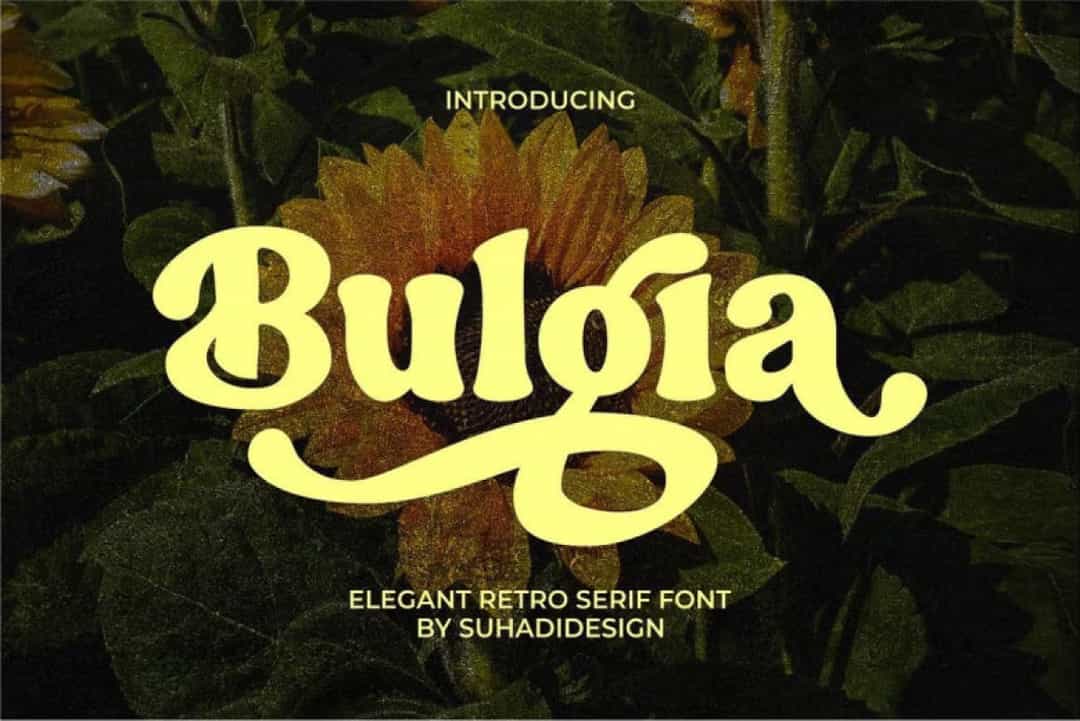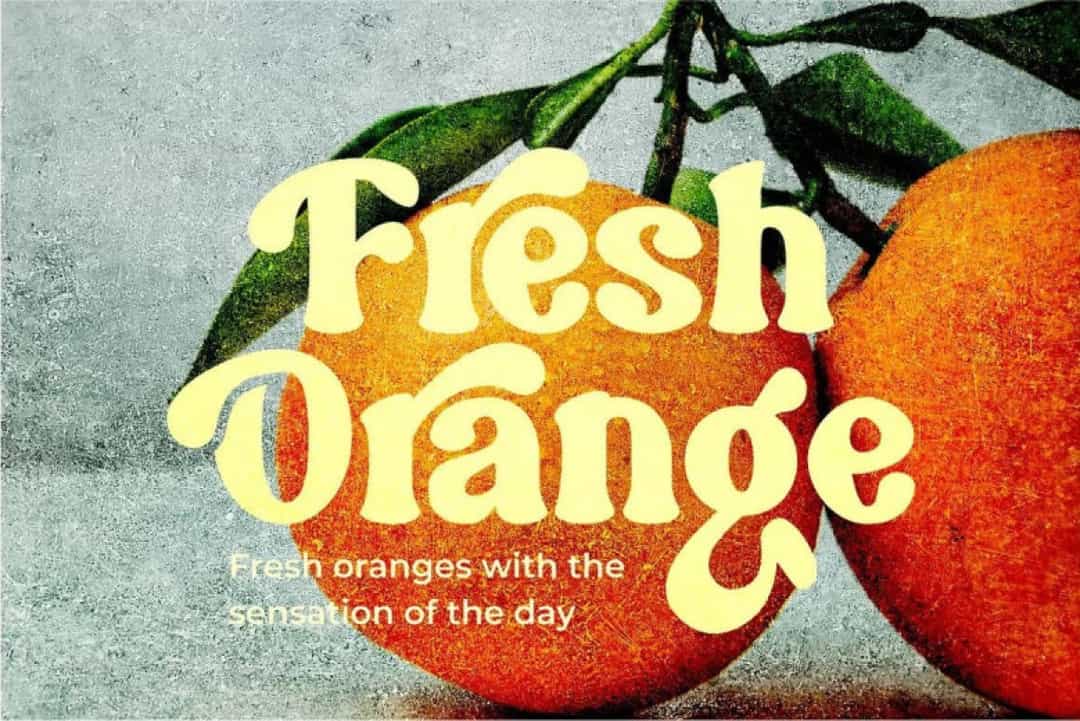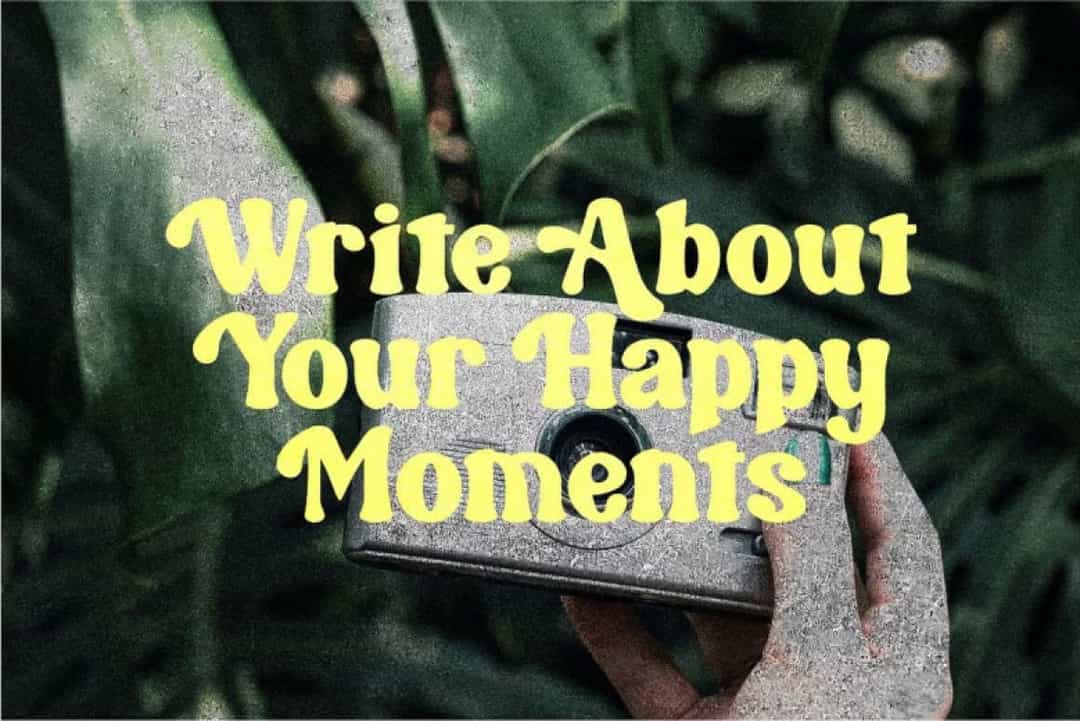
Bulgia Font is a serif font with beautiful alternates that feature an updated style in order to become one of the top selling fonts. Elegant, sophisticated, simple-to-read and fashionable. Bulgia font can easily become one of the top selling fonts as it is both elegant and easy to use; making it suitable for wedding invitations Retro designs newspapers book branding brand names branding quotes album covers and many other projects where high-quality designs are important.